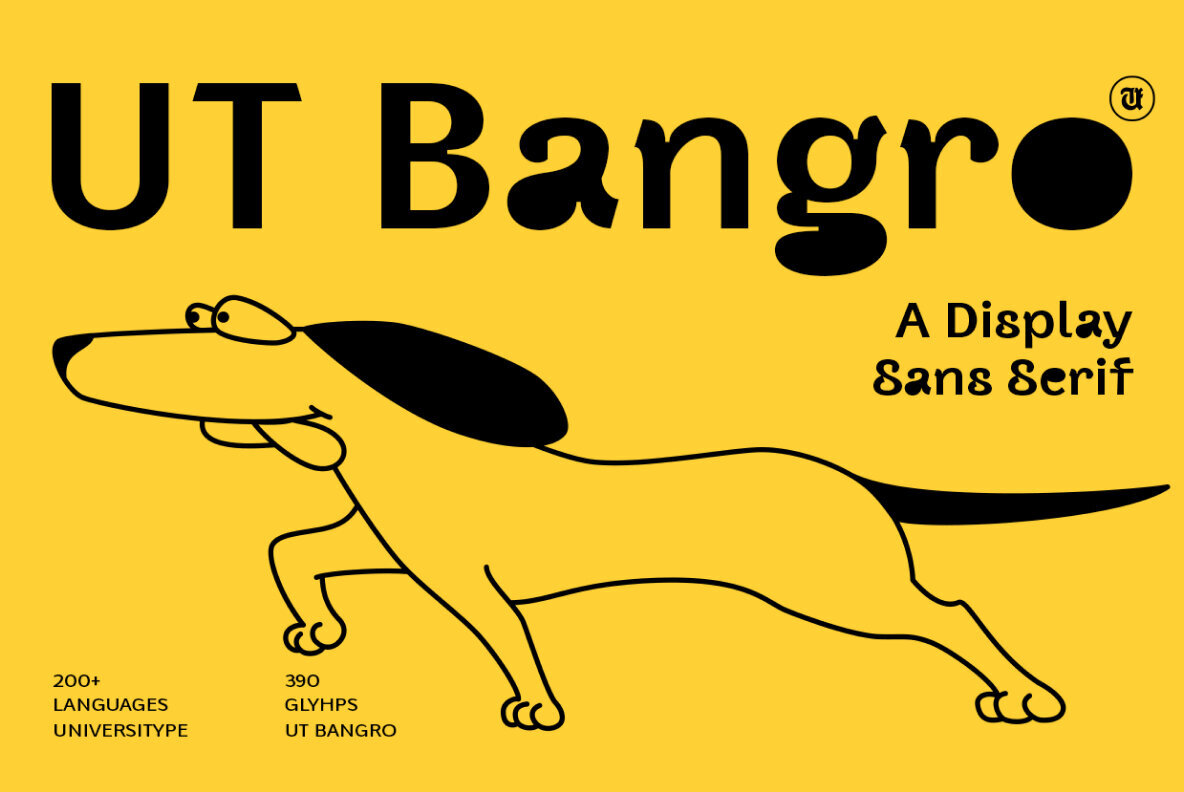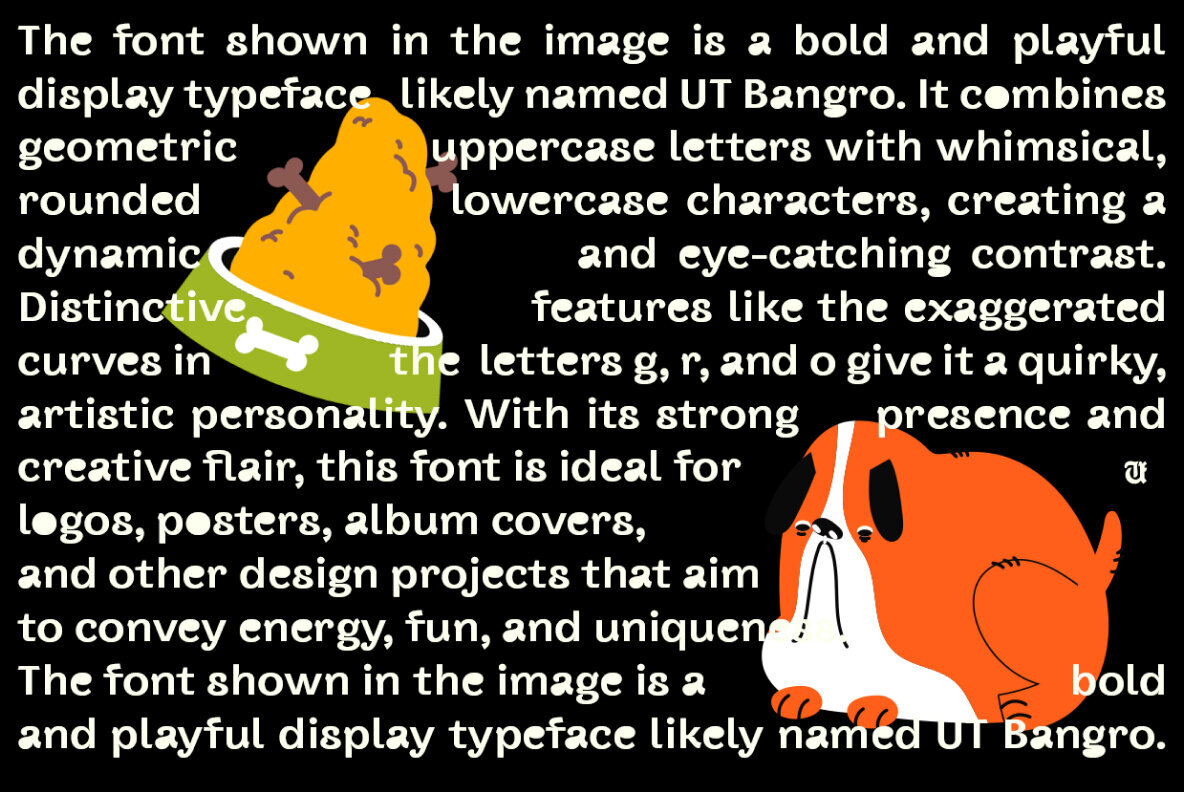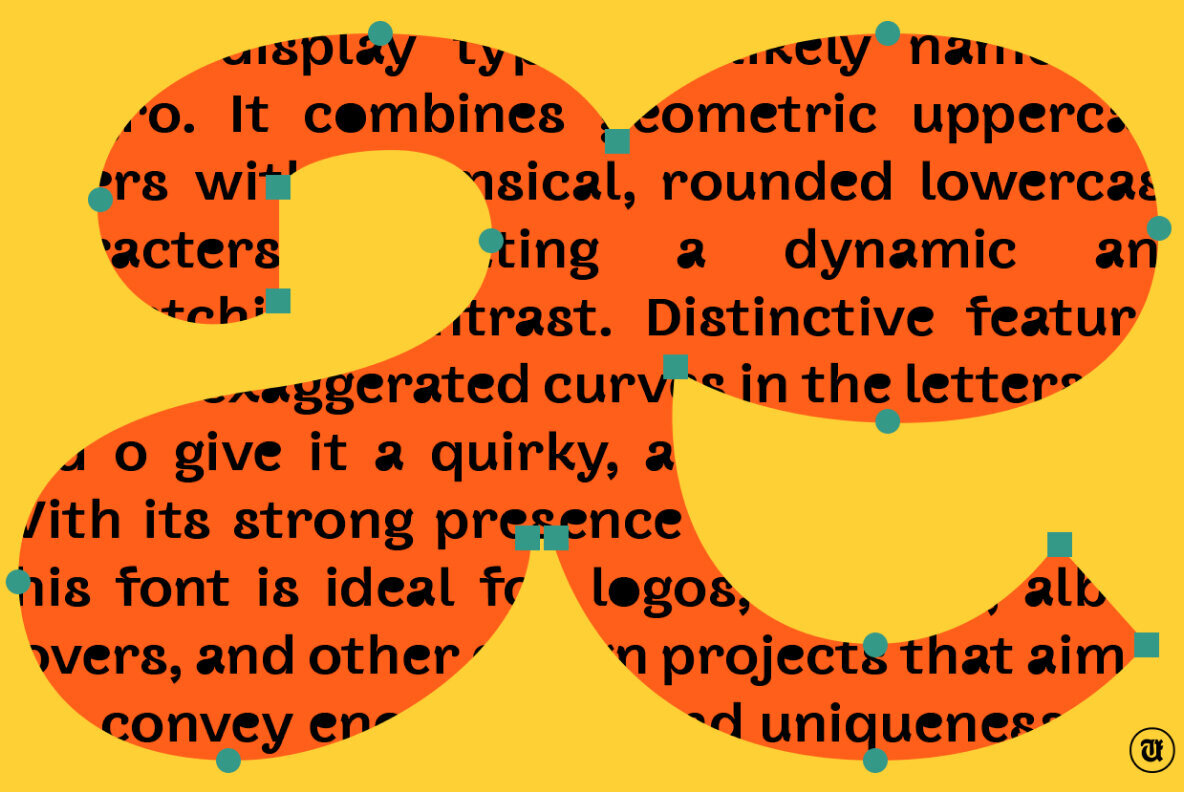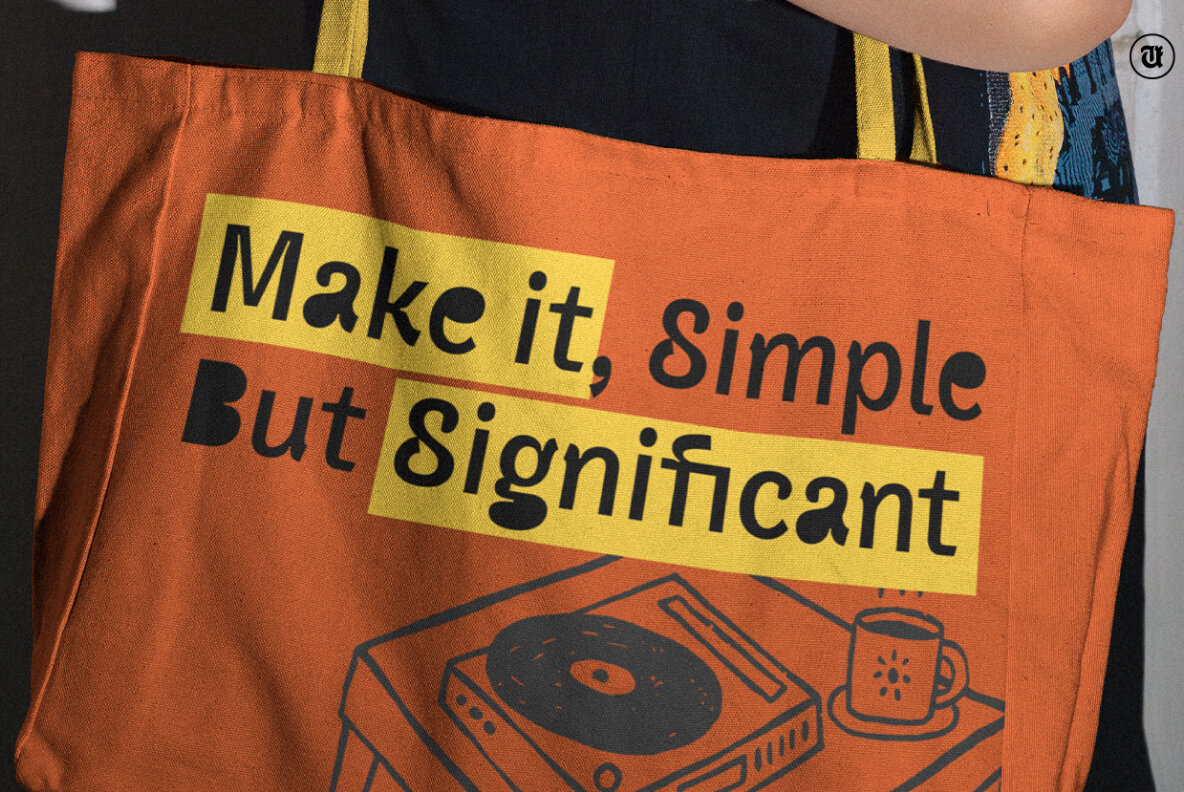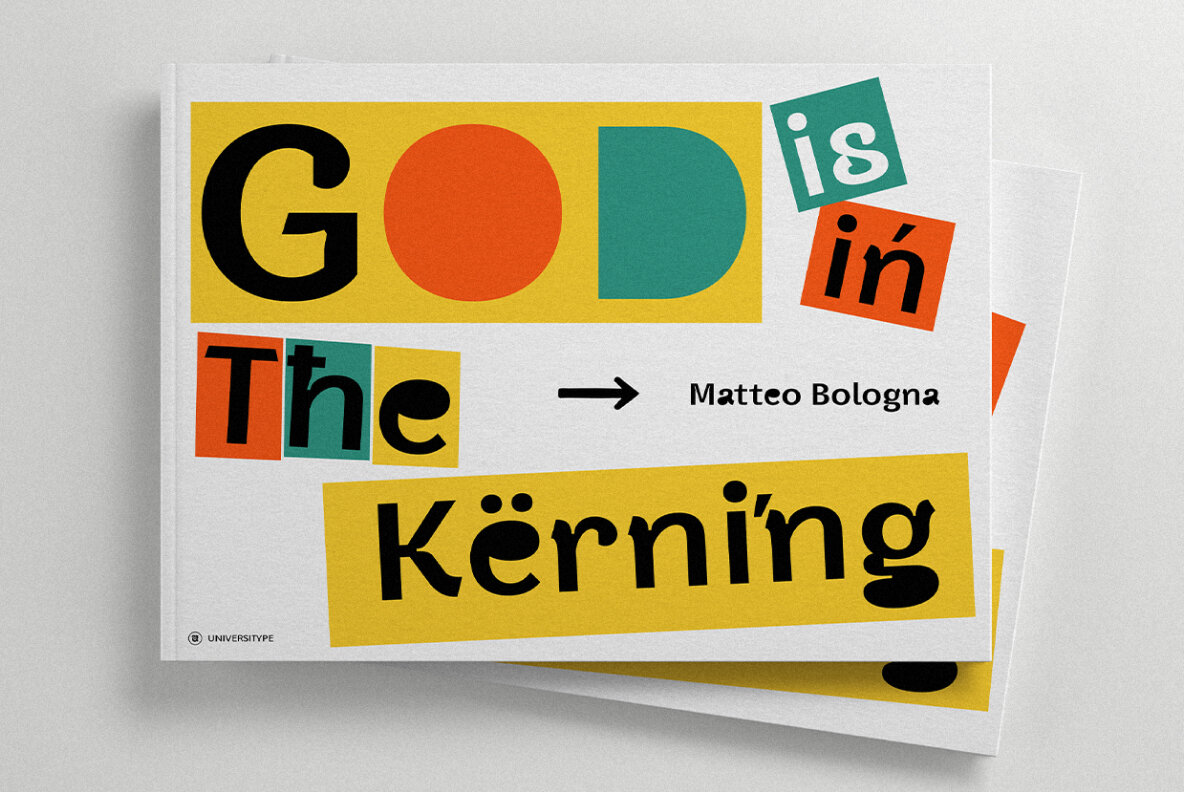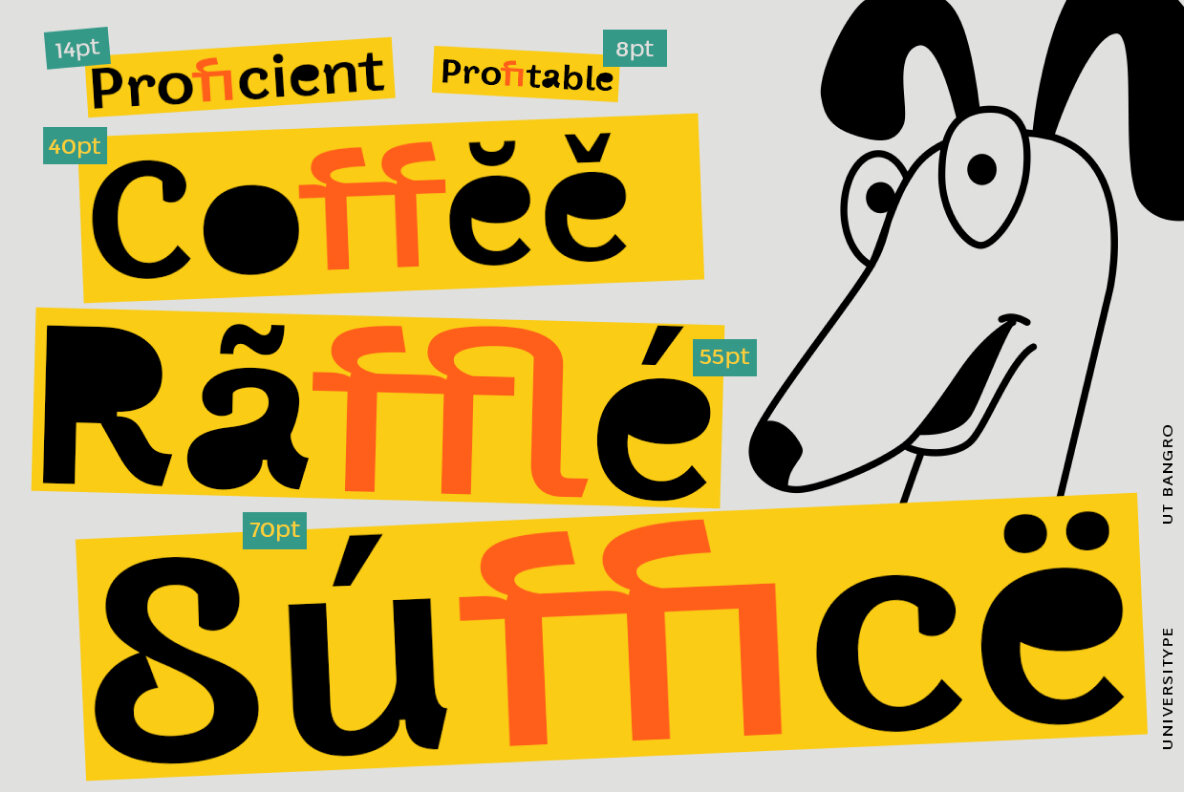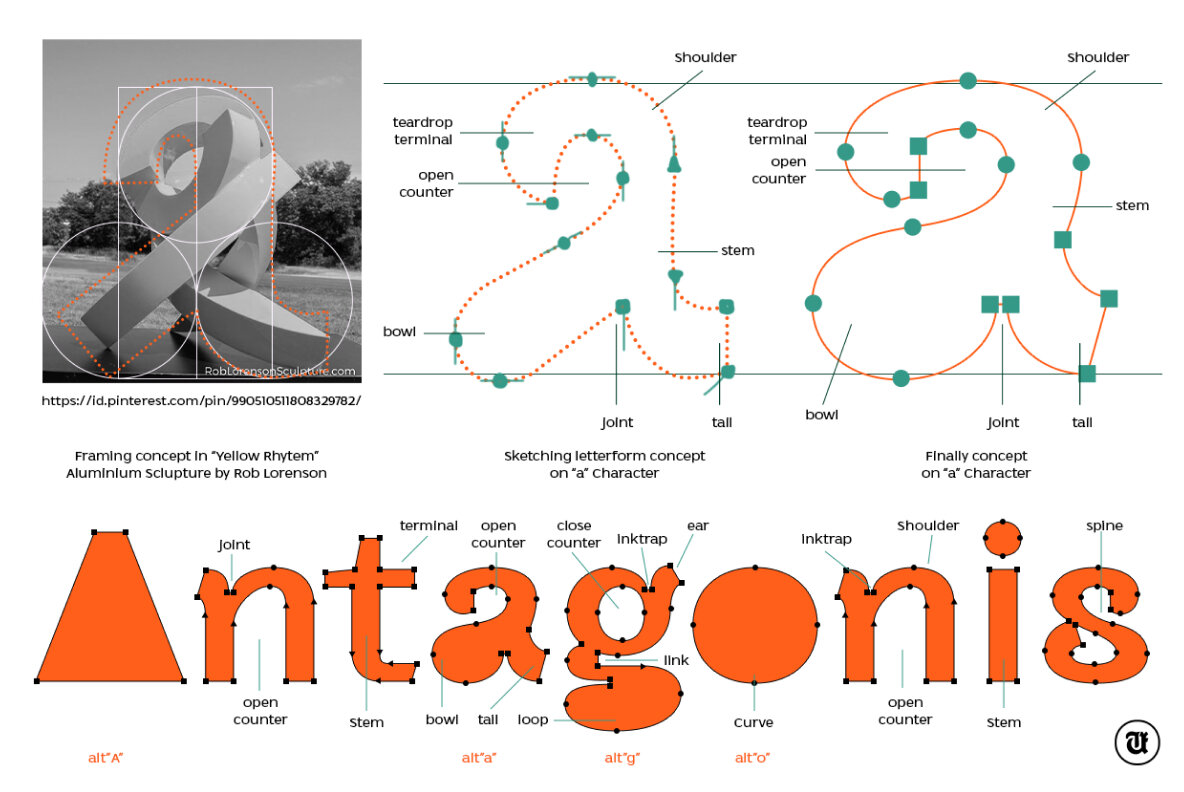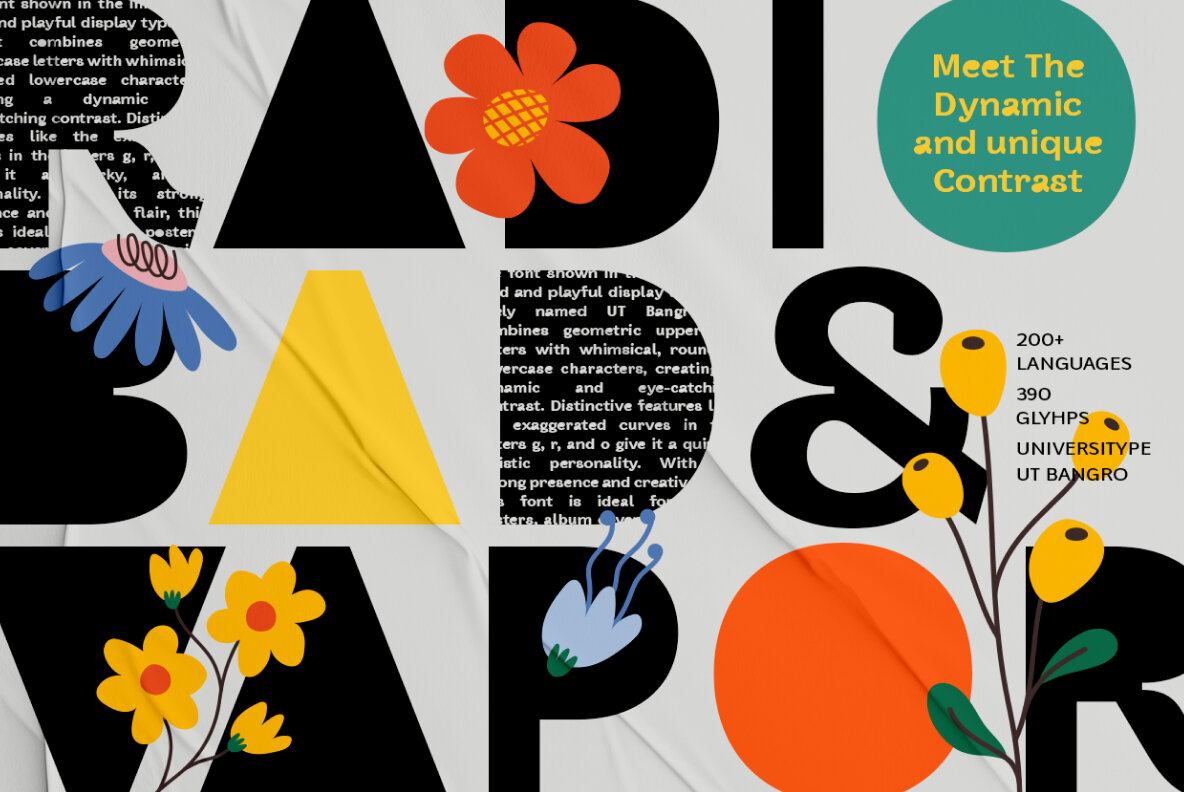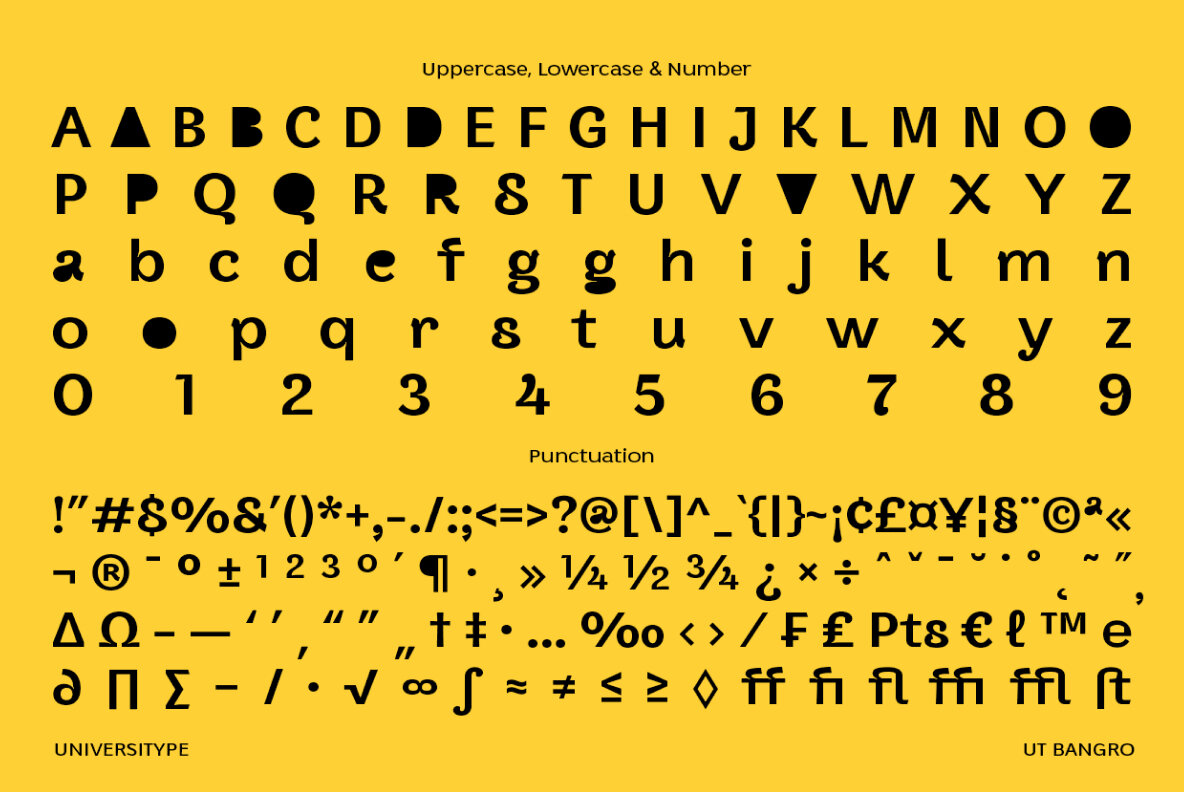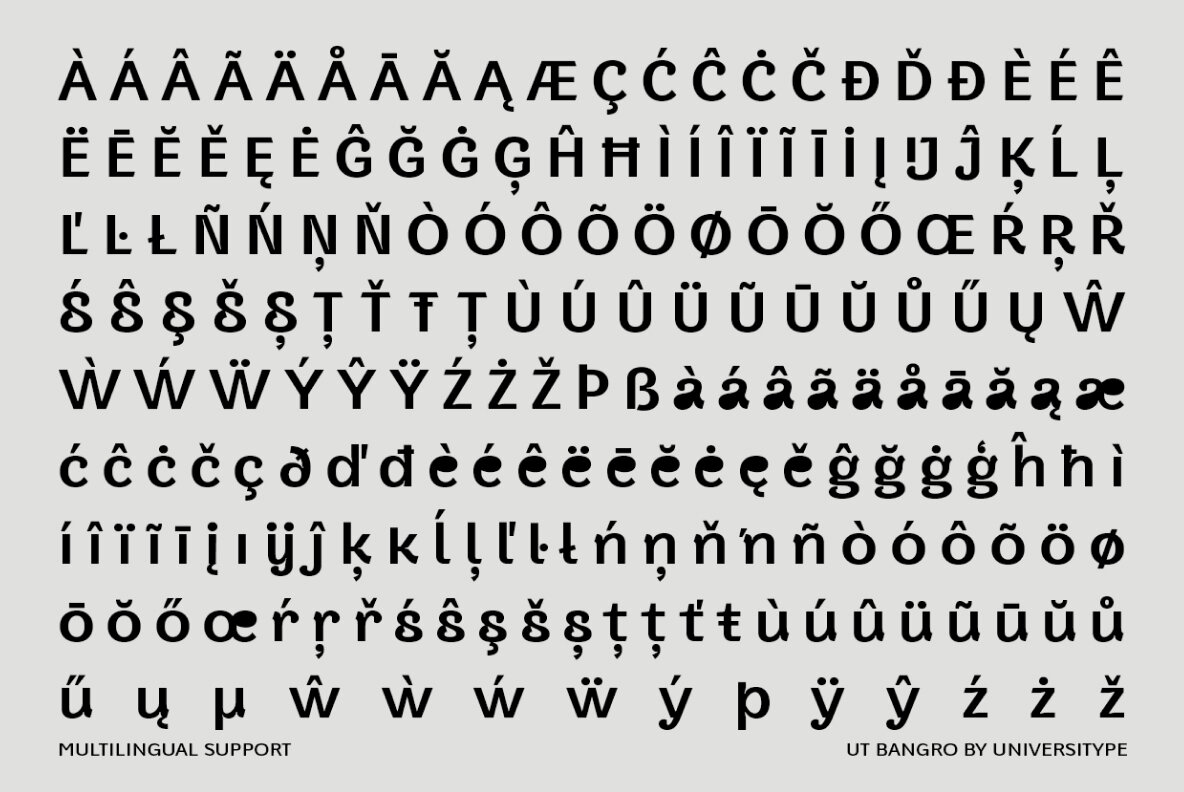
UT Bangro is a bold display sans serif that marries playful energy with confident structure. Each curve and terminal is meticulously crafted to enliven your designs. This typeface doesn’t just speak—it shouts, dances, and smiles. Designed for standout moments, UT Bangro is perfect for brand identities, editorial spreads, posters, and product labels. Its unique detailing and expressive alternates maintain legibility while adding charm and visual rhythm. UT Bangro enhances projects that thrive on personality, movement, and play. The essence of UT Bangro is sculpted, not drawn. Inspired by Rob Lorenson’s “Yellow Rhythm,” this typeface mirrors the fluid dynamism of sculpture. With intentional and organic shapes, every curve and corner suggests movement. The typeface embodies the illusion of motion, with letters that seem to lean and stretch, giving it kinetic energy. UT Bangro is vibrant and energetic, a tribute to both form and movement—it’s for designers who see letters as shapes with soul.UT Bangro: Bold Sans Serif With Playful Energy